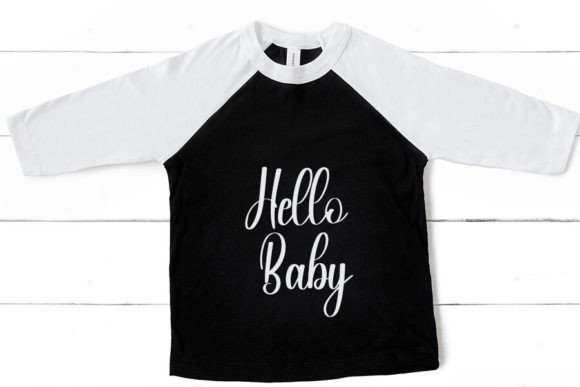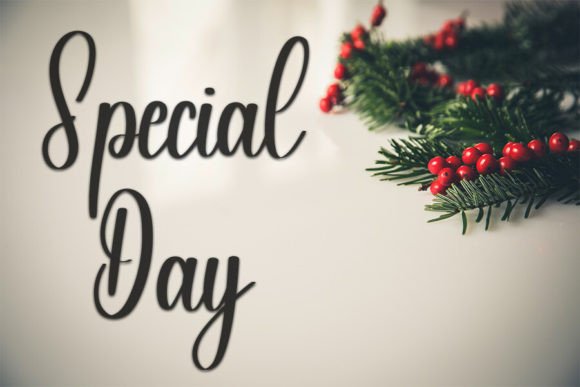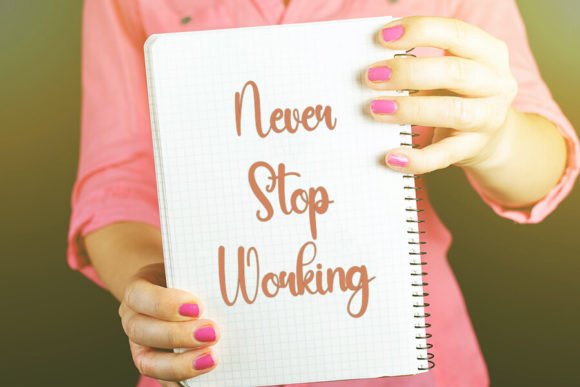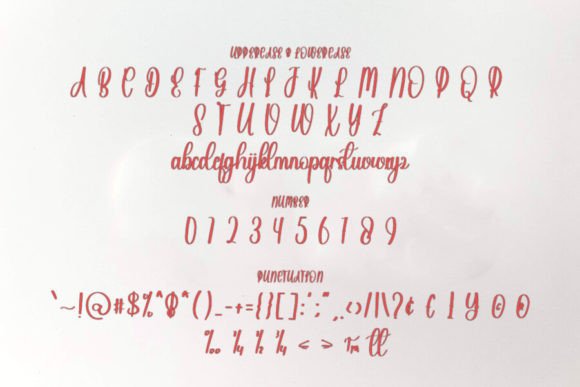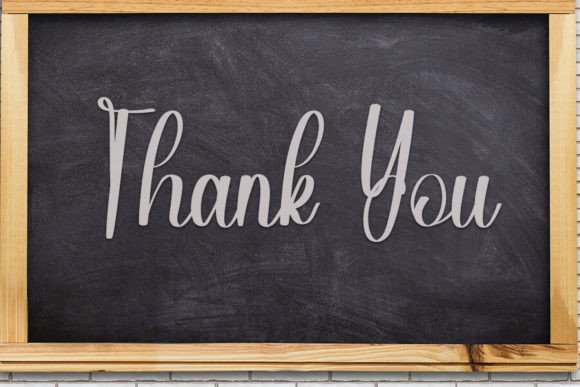
Discover the Timeless Elegance of Dayana Font
Have you ever sat down with a blank page, a spark of inspiration, and a blank mind, waiting for the perfect font to bring your creative vision to life? This is the moment when the right font can make all the difference. For designers and creatives, finding the perfect font can be a game-changer, elevating a simple design to a masterpiece.
Enter Dayana Font, a beautiful handwritten font that adds an elegant touch to any project. Its unique and timeless style makes it perfect for a wide range of designs, from elegant invitations to stunning branding materials. With Dayana Font, you can create spectacular designs that leave a lasting impression.
This versatile font is a valuable addition to any designer’s toolkit, offering a distinct and sophisticated look that’s sure to captivate your audience. Whether you’re a seasoned pro or just starting out, Dayana Font is the perfect choice for bringing your creative vision to life.
Dayana Font Key Features
- Font Family: Dayana
- Unique Characteristics: Elegant script font with a mix of modern and vintage elements, ideal for creative and artistic projects
Review of Dayana Font
Dayana Font is a beautiful and elegant font that can elevate the visual appeal of any design project. ✨ Its sleek and modern design makes it perfect for fashion, lifestyle, and luxury brands. The font’s refined lines and curves create a sense of sophistication and glamour, making it an excellent choice for high-end designs.
One of the things that stands out about Dayana Font is its excellent legibility. ✨ The font is clear and easy to read, even at smaller font sizes, making it ideal for body text and titles. The font also supports a wide range of languages, making it a great option for international designs.
While Dayana Font is a great choice for many design projects, there are some limitations to consider:
- ⚠️ The font may not be suitable for casual or playful designs, as its elegant design may come across as too formal.
- ⚠️ The font may not be compatible with all operating systems or devices, which could lead to display issues.
Overall, Dayana Font is a high-quality font that can add a touch of sophistication and elegance to any design project. While it may have some limitations, its excellent legibility and modern design make it a great choice for luxury and fashion brands.
Dayana font is suitable for:
- Food and beverage branding
- Wellness and fitness branding
- Modern and minimalist designs
Alternatives to Dayana Font for Designers
Lato Font is a modern sans-serif typeface designed by Łukasz Dziedzic. It’s a versatile font suitable for various design projects, including corporate branding, editorial design, and digital interfaces. Lato Font is a great alternative to Dayana Font as it offers a similar modern and sleek feel, but with a more neutral tone. It’s ideal for designs that require a clean and minimalist aesthetic.
Comparison: While both fonts share a modern aesthetic, Lato Font has a more subtle and neutral tone compared to the bold and playful Dayana Font.
Montserrat Font is a sans-serif typeface designed by Julieta Ulanovsky. It’s a geometric font inspired by the urban landscape of Buenos Aires. Montserrat Font is a great choice for designers who want a font with a strong, modern feel. It’s ideal for designs that require a bold and urban aesthetic.
Comparison: Montserrat Font has a more geometric and bold feel compared to Dayana Font, making it a great choice for designs that require a strong and modern look.